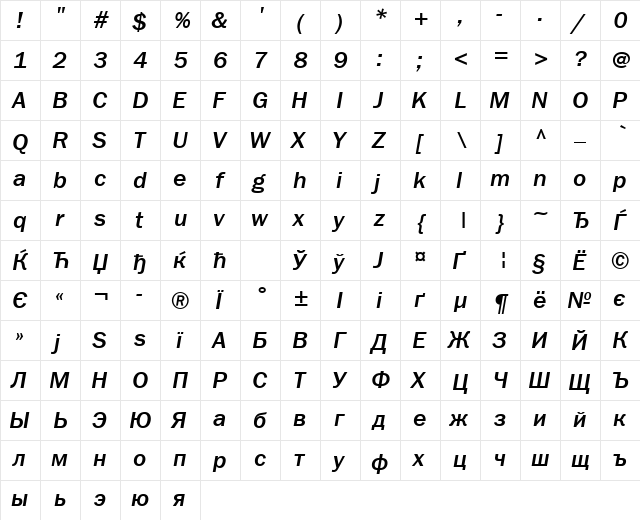
FranklinGothMediumCTT Italic Font Preview
FranklinGothMediumCTT Italic
Design Context for FranklinGothMediumCTT Typeface
FranklinGothMediumCTT is a composed and adaptable typeface that performs quietly and consistently across a wide range of design contexts. Its italic angle brings a sense of urgency and motion to the letterforms.
Pro Tip: Try FranklinGothMediumCTT for annotation and caption copy alongside an upright companion — the contrast in angle creates a dynamic but ordered typographic system.